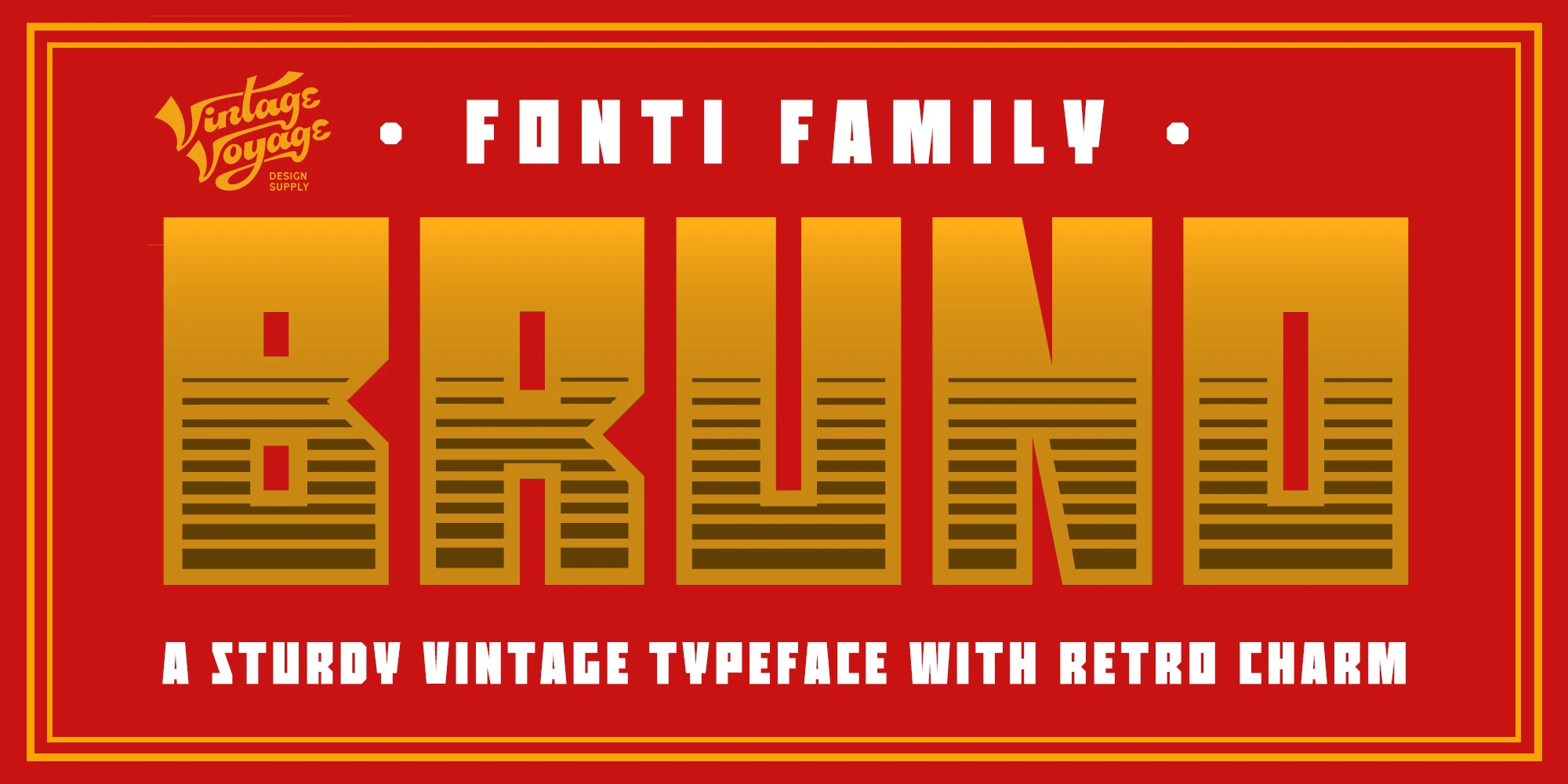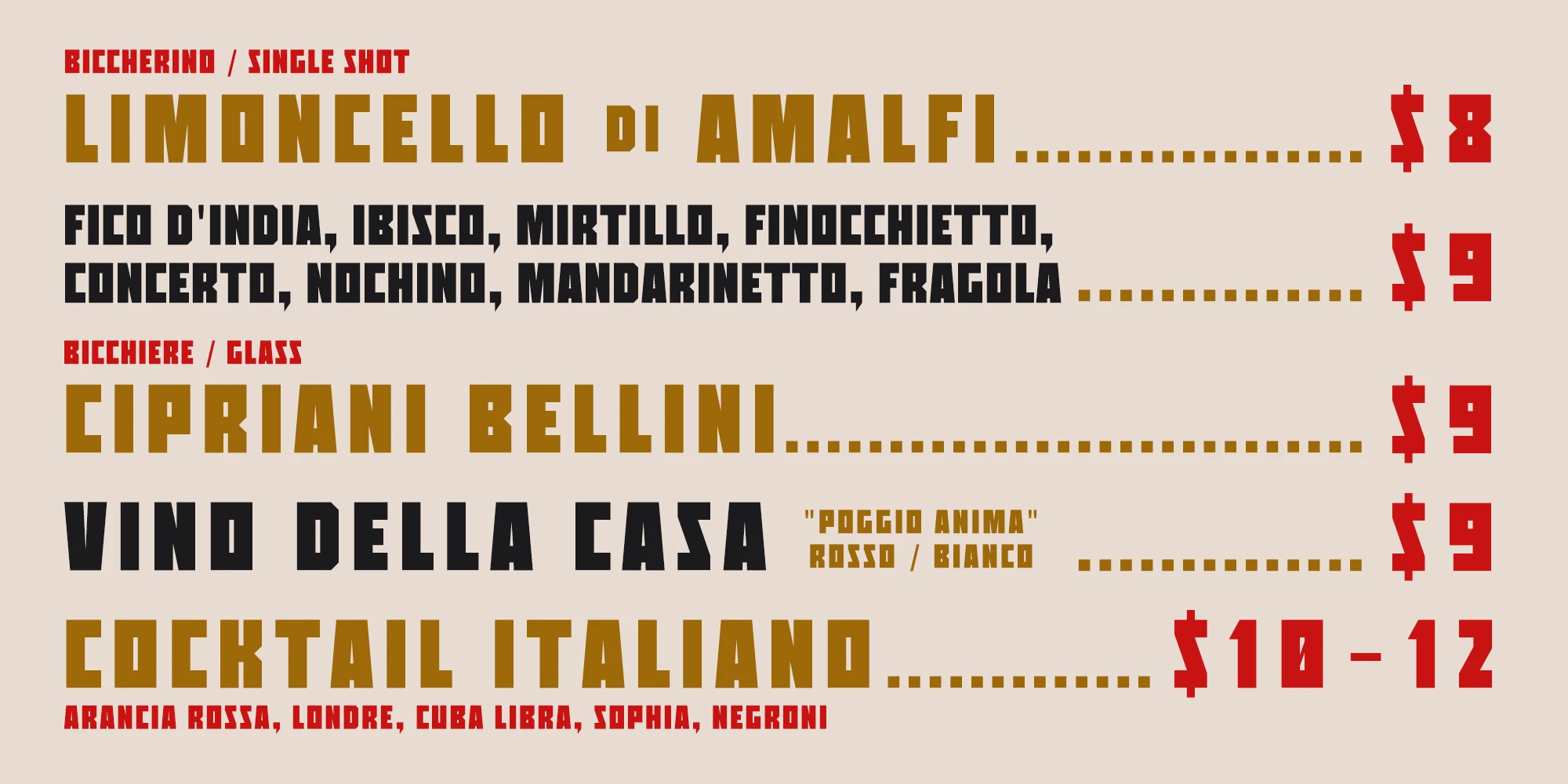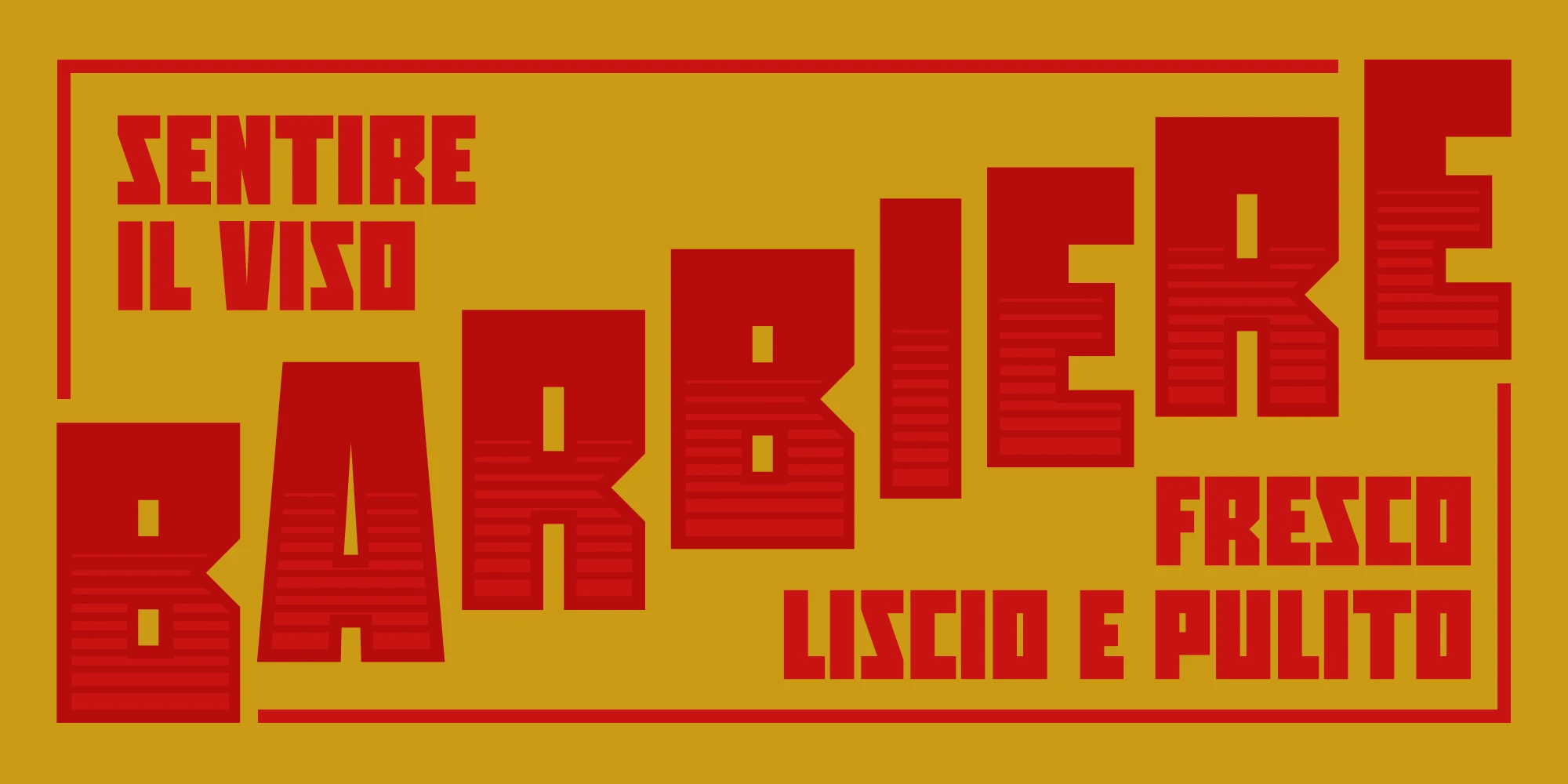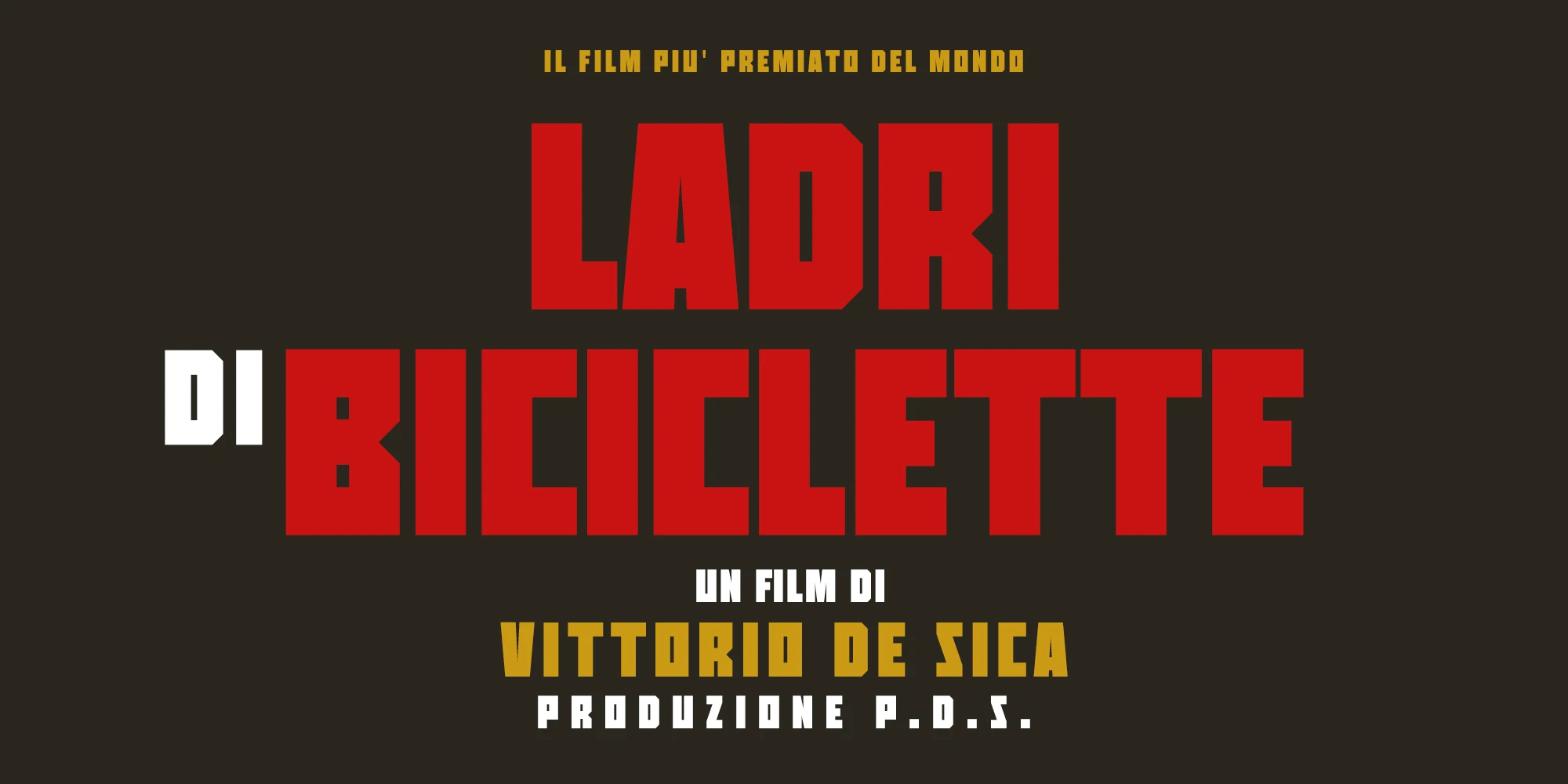
Fonti Bruno Font Family
Fonti Bruno is a bold display typeface rooted in Italian street typography of the 1950s–70s, recalling the blocky, geometric lettering of posters and signage. Made entirely of flat sides, it is available in Solid, Fade Inset, and Decorated — pushing contrast and dimensional play, creating a striking effect. With its strong verticals and graphic presence, Fonti Bruno is well-suited to posters, record sleeves, packaging, or branding projects that call for an assertive typographic voice.
• Common Ligatures
• Fractions
• Superscript